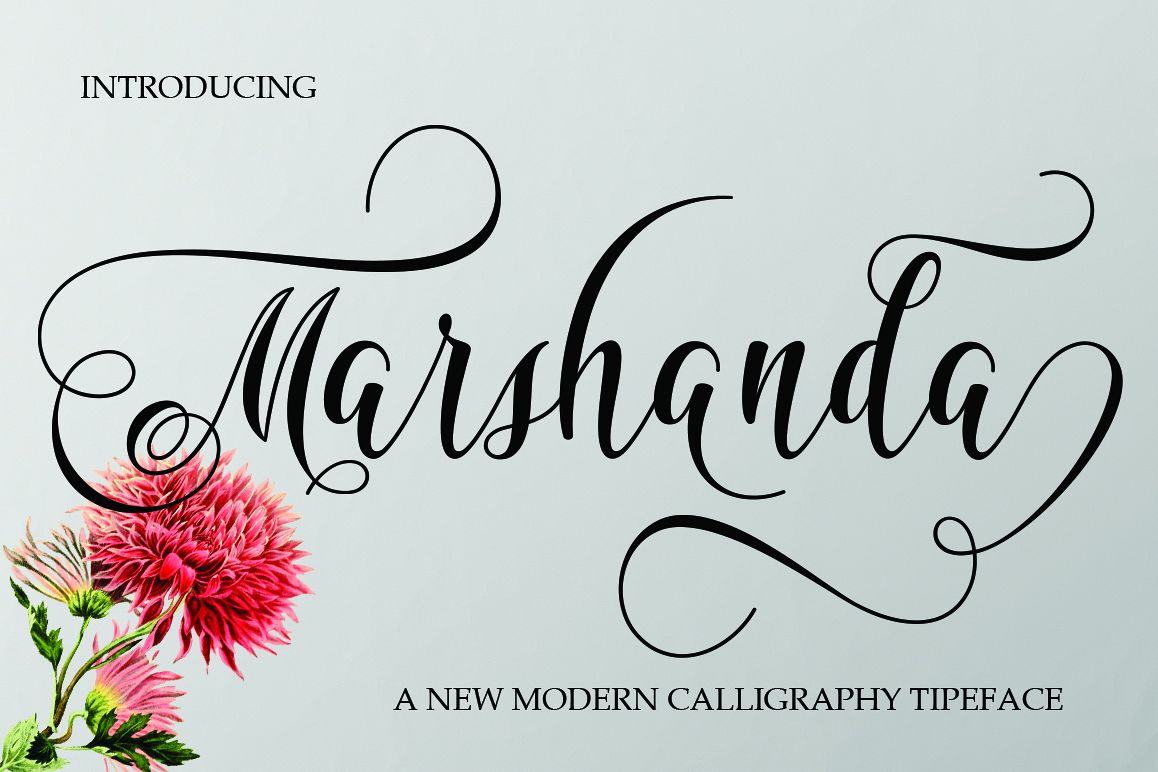
Marshanda
Marshanda is another lovely modern calligraphy typefaces, which is combining the style of classic calligraphy with an modern style. combines from copperplate to contemporary typeface with a dancing baseline, modern and elegant touch.
The Features of this fonts is;
• Standart ligatures
• Discretionary ligatures
• Swash Alternates
• Stylistic sets
• PUA Unicode (Private Use Areas)
Can be used for various purposes.such as headings, logos, wedding invitation, t-shirt, letterhead, signage, lable, news, posters, badges etc. To enable the OpenType Stylistic alternates, you need a program that supports OpenType features such as Adobe Illustrator CS, Adobe Indesign & CorelDraw X6-X7